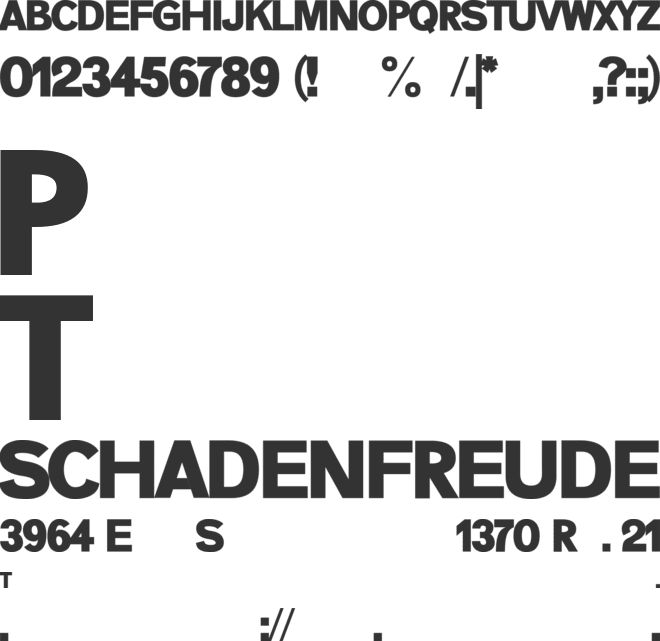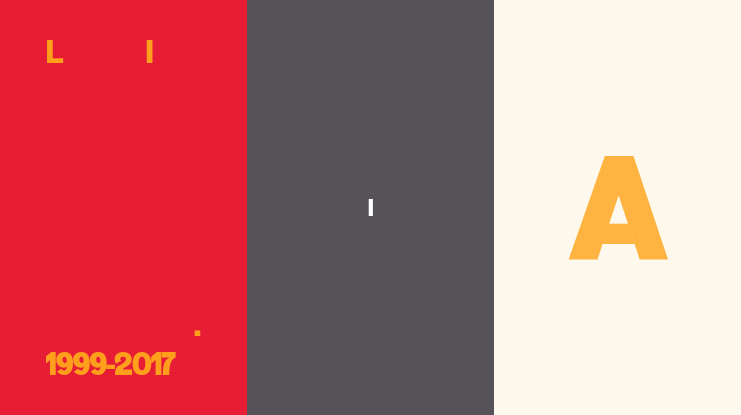
BERLIN Font
🎨 Font Name: BERLIN by Minimalist Art Studio
🎨 Font Description: Berlin is a clean sans serif with multilingual support—ideal for modern branding, editorial clarity, and minimalist web design.
✔ Complete Latin set + multilingual diacritics
✔ Alternates, stylistic sets & ligatures
✔ Numbers, small caps, and extended punctuation
✔ Bonus italics and family styles